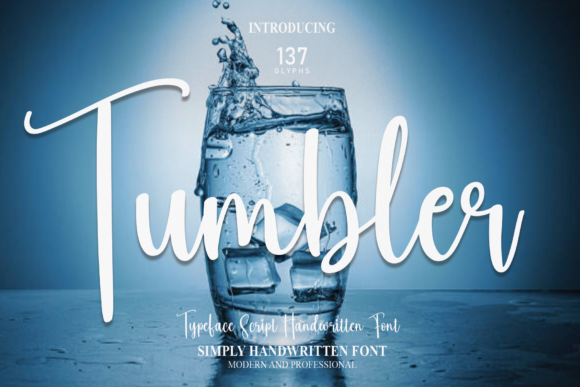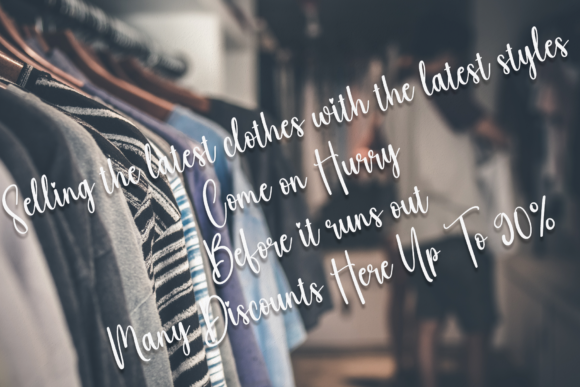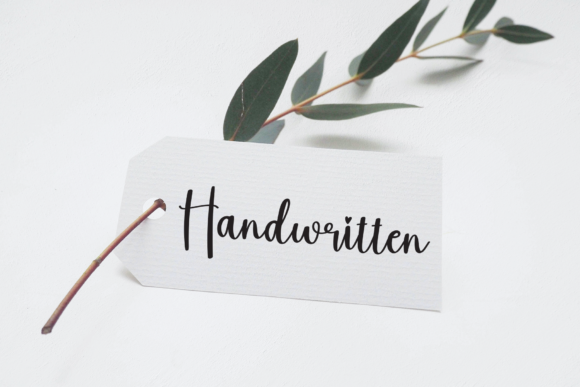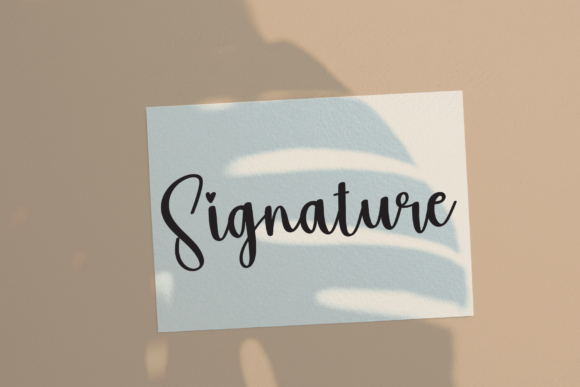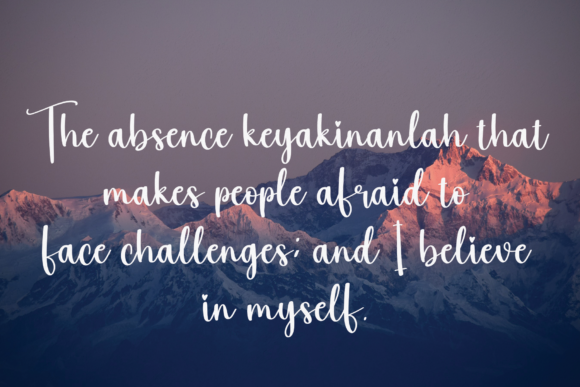
About Tumbler Font
Tumbler is a font that embodies chic and modern elegance, making it an excellent choice for a wide range of design projects. With its fashionable script style, Tumbler adds a touch of sophistication and flair to every element it graces.
Imagine Tumbler adorning a high-end fashion brand’s logo. The font’s sleek and stylish curves create a sense of luxury and exclusivity, instantly capturing the attention of fashion-forward consumers. Whether embossed on clothing labels, printed on shopping bags, or showcased on storefront signage, Tumbler elevates the brand’s identity and reinforces its chic image.
For t-shirt printing, Tumbler’s fashionable script style adds an element of trendy appeal. Whether it’s a witty slogan, a catchy phrase, or a bold design, this font enhances the visual impact of t-shirt graphics. Its clean lines and fluid strokes contribute to a sleek and polished look, making the shirts not only comfortable to wear but also stylish and on-trend.
When applied to creative products, Tumbler transforms everyday items into chic works of art. Picture the font gracing the packaging of a high-end cosmetics line. Its graceful script adds a touch of sophistication to lipsticks, perfumes, and skincare products, enticing customers with its fashionable allure. The font’s versatility shines as it enhances the aesthetics of various product labels and designs.
In the realm of branding projects, Tumbler takes center stage on business cards, letterheads, and marketing materials. Its elegant script style makes a lasting impression, reflecting the professionalism and modern sensibility of the brand. Whether used by a creative agency, a beauty salon, or a trendy café, Tumbler adds a touch of class to every branding element.
Tumbler’s ability to shine in a variety of contexts is a testament to its versatility. Its chic and fashionable script style seamlessly adapts to different design requirements, from logos to apparel, packaging to branding. The font’s clean lines and balanced forms create a sense of visual harmony, making it a delightful addition to any project.
Ultimately, Tumbler is more than just a font; it’s a design element that enhances the overall aesthetic and impact of your creations. Its chic and fashionable script style adds a touch of modern elegance to every context, ensuring that your designs stand out and leave a lasting impression on your audience.
So, whether you’re working on a logo, t-shirt design, creative product, or branding project, let Tumbler be your font of choice. Its versatility and fashionable appeal will elevate your designs and make them truly extraordinary.